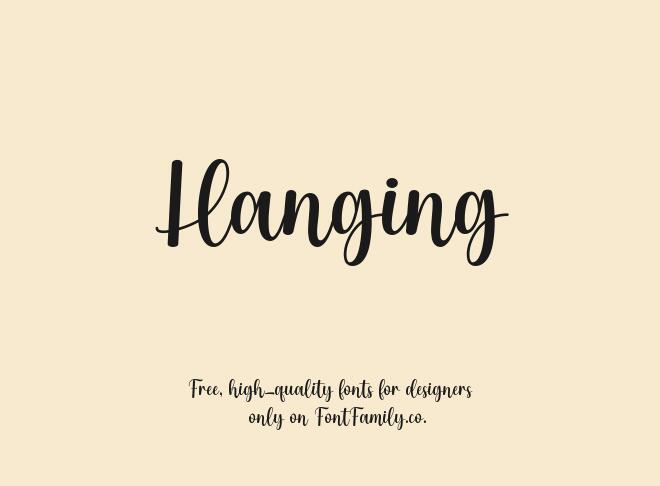
Hanging Font
Hanging Font, crafted by the Creative Type Foundry, is a whimsical, playful decorative typeface that exudes a retro vibe. Its unique design features letters that appear to be 'hanging' off a line, lending an enjoyable and engaging look to any design it's used in. The font's character set is complete with both uppercase and lowercase letters, numbers, punctuation, and special characters. Hanging Font is a perfect choice for designers looking to add a fun, retro touch to their projects, be it posters, invitations, logos or display text. Its distinctive style sets it apart from traditional fonts, making it a standout choice for those wanting to make a strong design statement. Free to download under the Open Font License, Hanging Font is a versatile addition to any designer's toolkit.
Author | Creative Type Foundry |